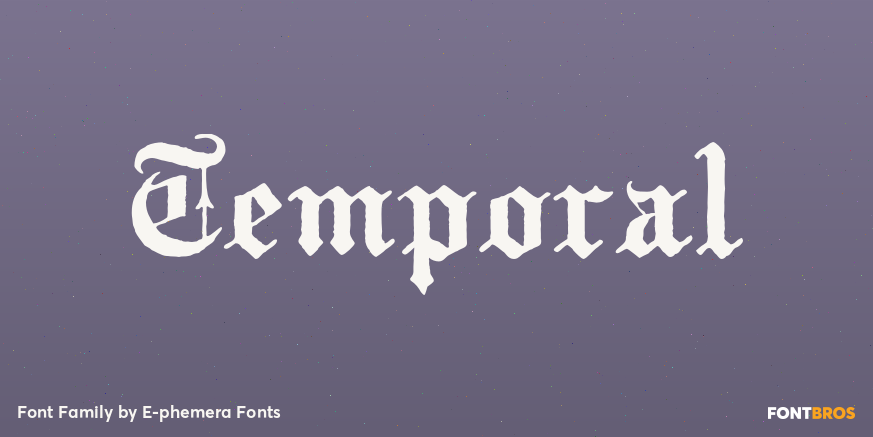
Temporal
About Temporal
Temporal is one in a series of fonts designed for use in creating replica vintage newspapers. It is inspired by the nameplates of major metropolitan newspapers from the 1920s. Its rough character is apparent at headline sizes, and it remains nicely…